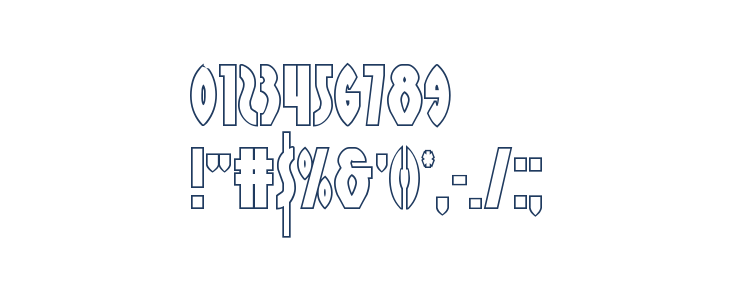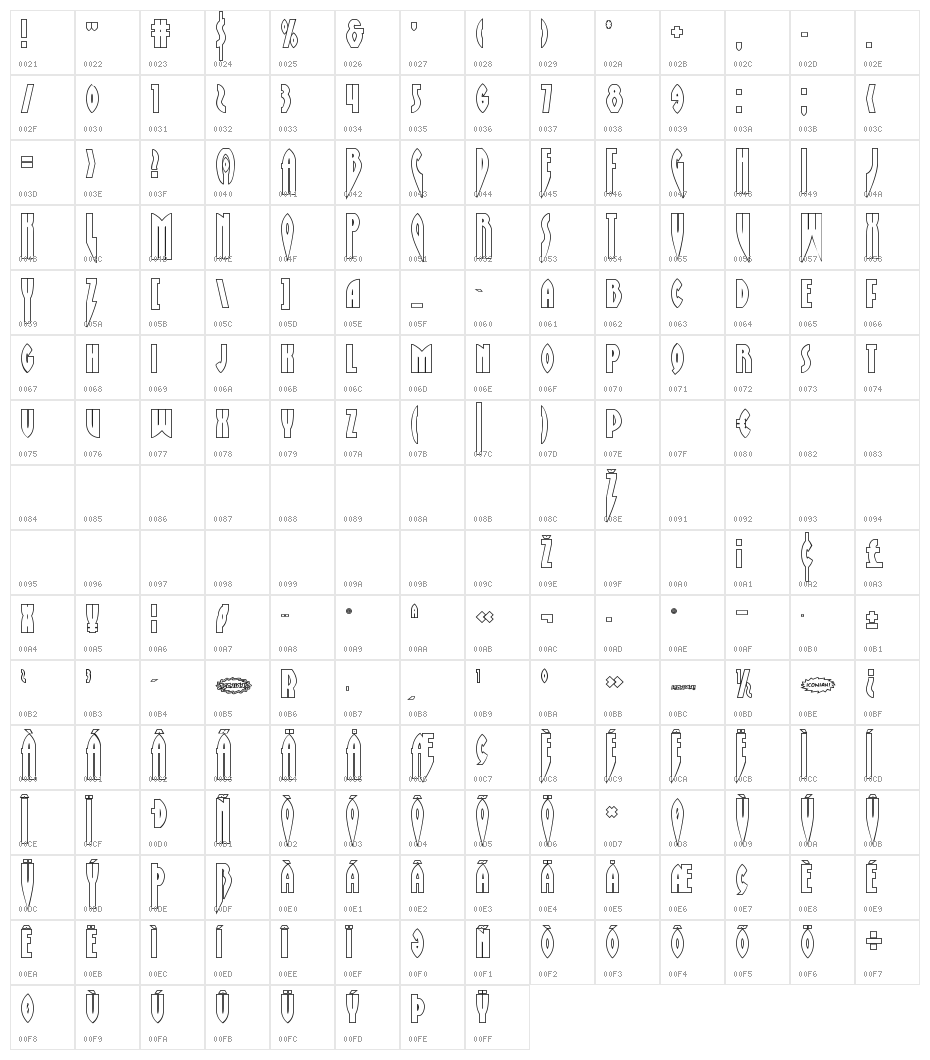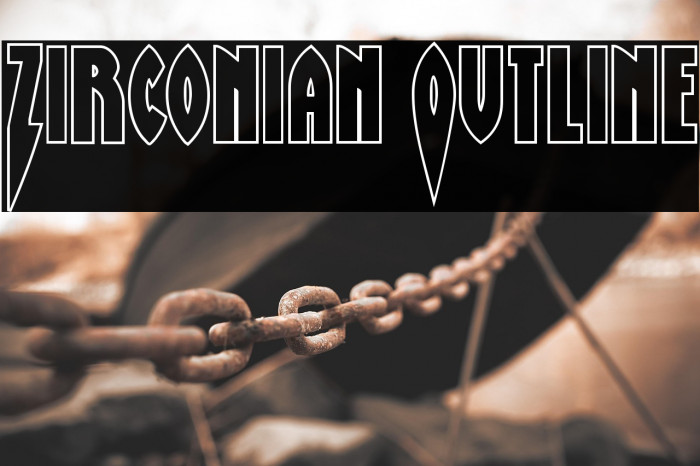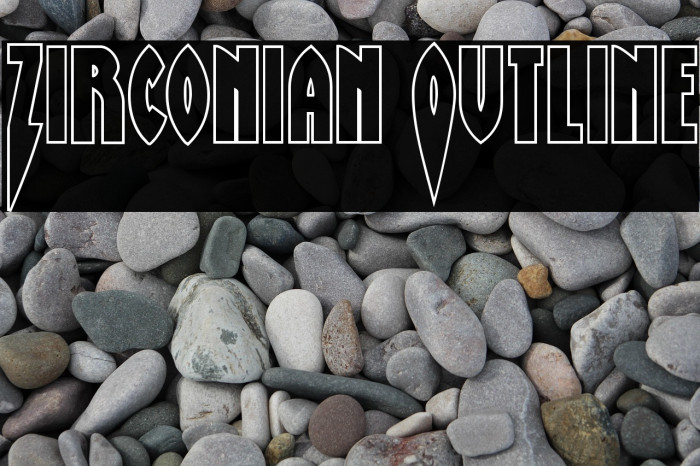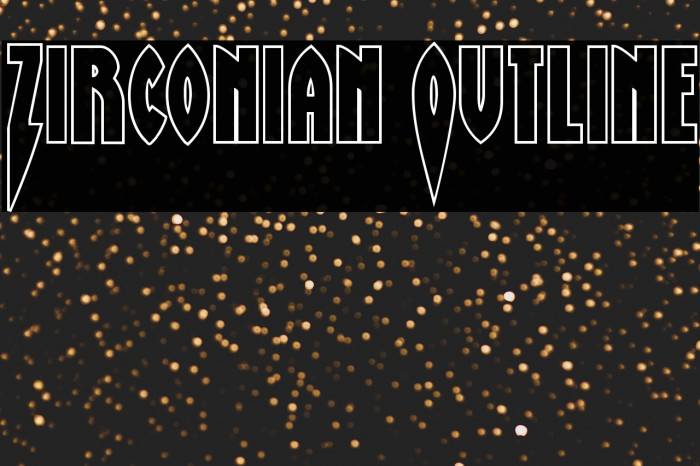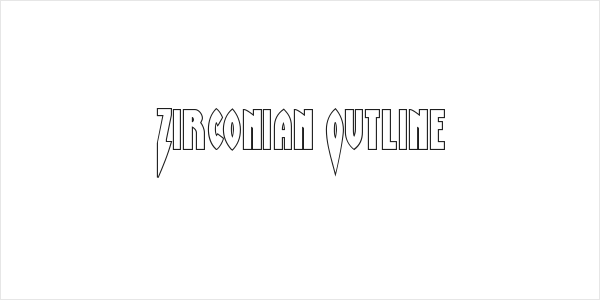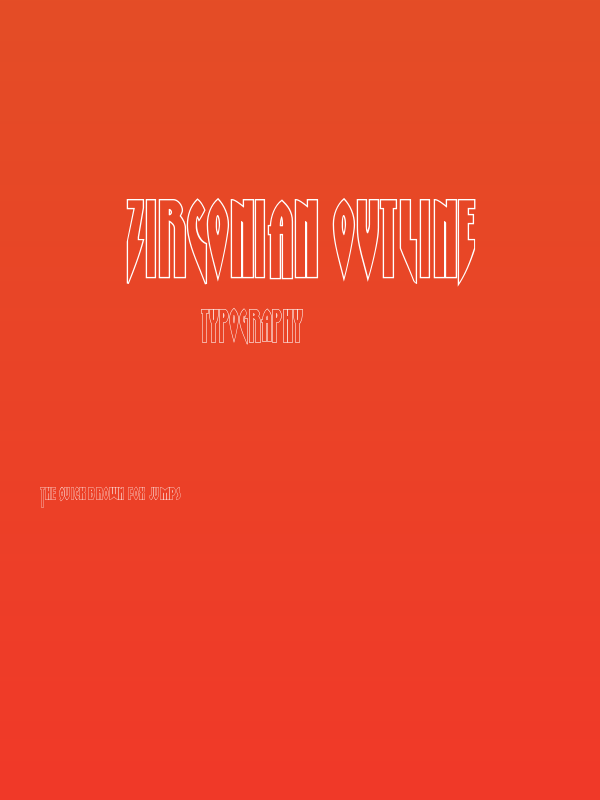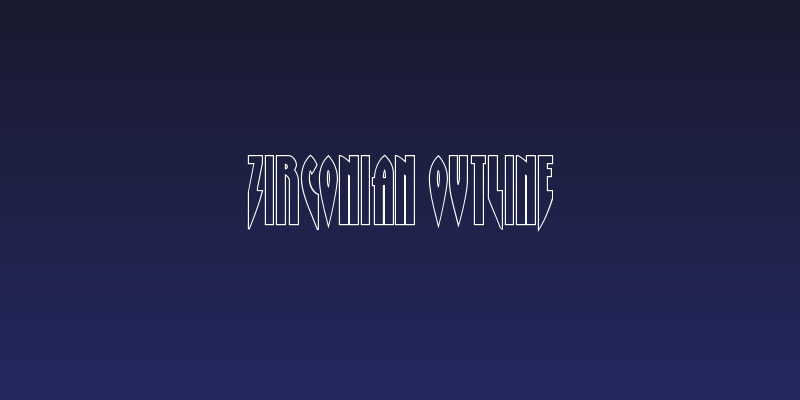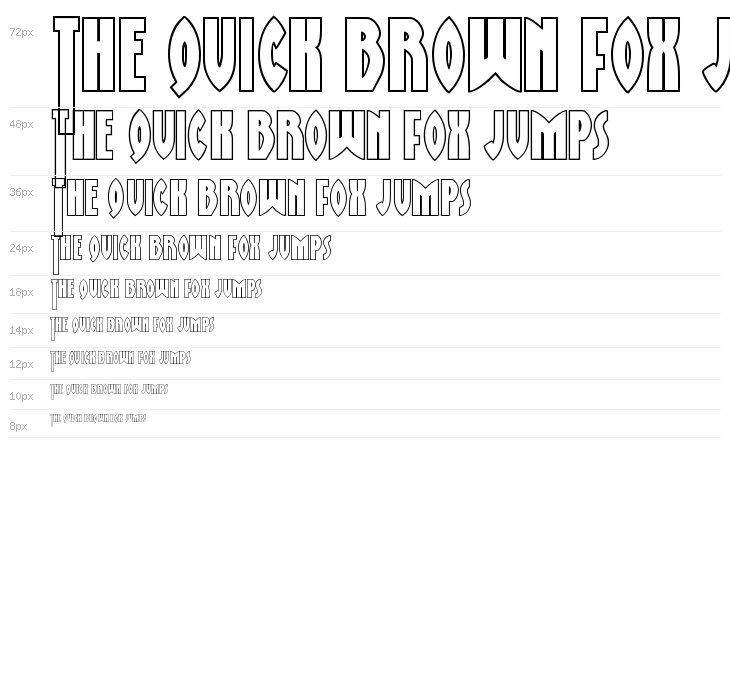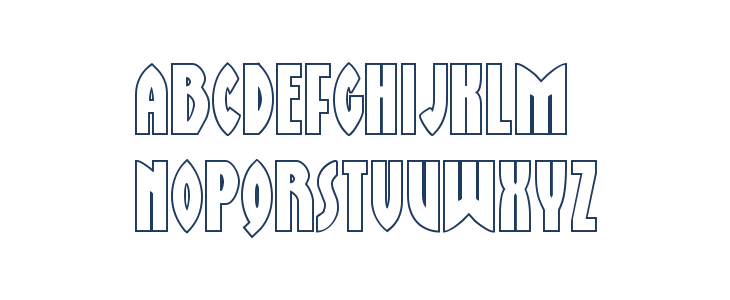
Zirconian Outline Font
Zirconian Outline Description
This font features a bold, geometric outline style that creates a striking visual impact. The characters are designed with sharp angles and clean lines, giving them a modern and futuristic appearance. The uppercase letters are tall and narrow, while the lowercase letters maintain a consistent height, ensuring readability. The numbers and special characters follow the same design principles, making them cohesive with the alphabet. This font's outline nature allows for creative use of color and background, enhancing its versatility in various design projects.
| Proposed Projects | Ideal for posters, logos, headlines, and any design project requiring a bold statement. |